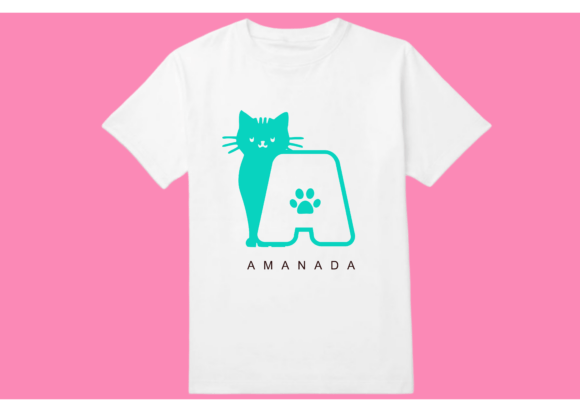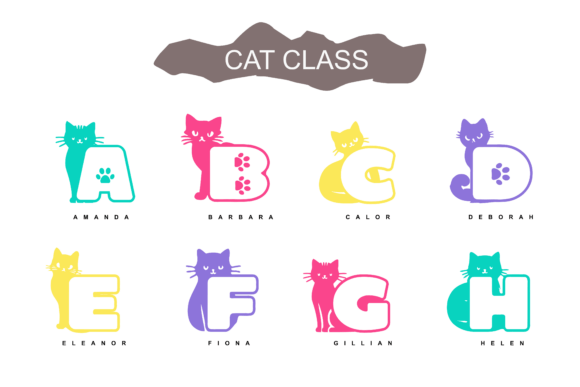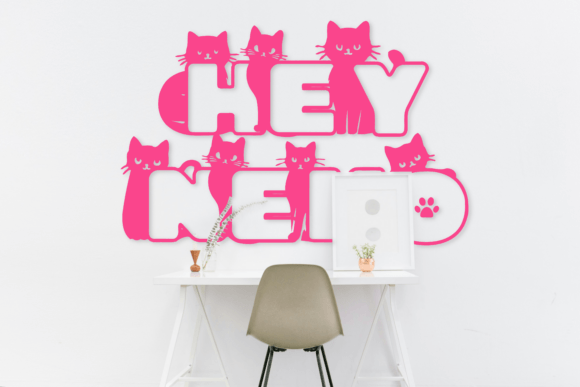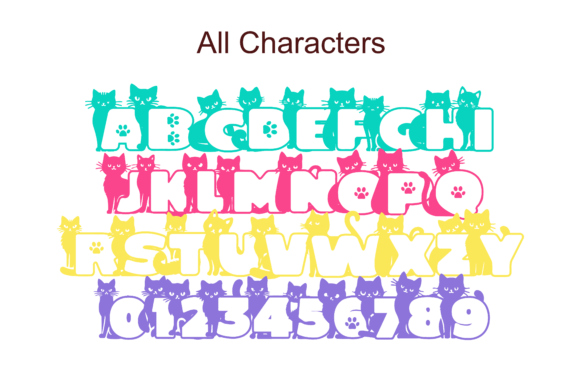
Unleashing Whimsy: A Deep Dive into the Enchanting Cat Land Font
I’ll never forget the design project that led me to discover Cat Land Font. I was working on a branding campaign for a mystical-themed boutique, and I was on the hunt for a font that could capture the essence of whimsy and sophistication. Hours turned into days, and days into weeks, as I scrolled through font after font, but none seemed to fit the bill. That was until I stumbled upon Cat Land – a game-changing display font that instantly transported me to a world of enchantment.
As I dove deeper into Cat Land, I fell in love with its unique charm. Here are a few things that make it stand out:
- ✨ Whimsical sophistication: Cat Land strikes the perfect balance between playfulness and elegance, making it perfect for designs that require a touch of magic.
- ✅ PUA-encoded: The font comes with a range of glyphs and ligatures that can add an extra layer of flair to your designs.
- 🔥 Versatility: From branding and packaging to social media graphics and invitations, Cat Land can adapt to various design needs.
Of course, no font is perfect, and Cat Land has a few quirks:
- 🤔 Legibility at small sizes: While Cat Land shines at display sizes, it can get a bit tricky to read at smaller sizes. Be mindful of this when using it for body text.
- ⚠️ Glyph compatibility: Some glyphs might not work seamlessly with all design software. Make sure to test them out before finalizing your design.
The Story Behind Cat Land: A Glimpse into the Designer’s Inspiration
According to the font’s creator, Cat Land was inspired by the mystical and magical world of fantasy. The designer wanted to craft a font that would transport users to a world of wonder and enchantment. With its unique blend of fluid contours and twirls, Cat Land is the perfect reflection of this vision.
| Font Name | Cat Land Font |
| Author | Infontree |
| What is the best way to use Cat Land in my designs? | Cat Land shines at display sizes, making it perfect for headings, titles, and branding materials. Experiment with different sizes and colors to find the perfect fit for your design. |
| Is Cat Land suitable for body text? | While Cat Land is stunning at display sizes, it may not be the best choice for body text due to legibility issues at smaller sizes. |